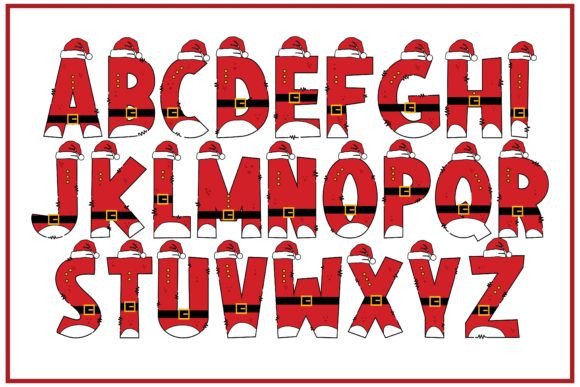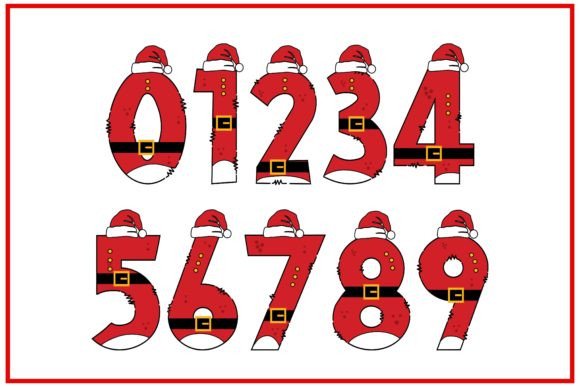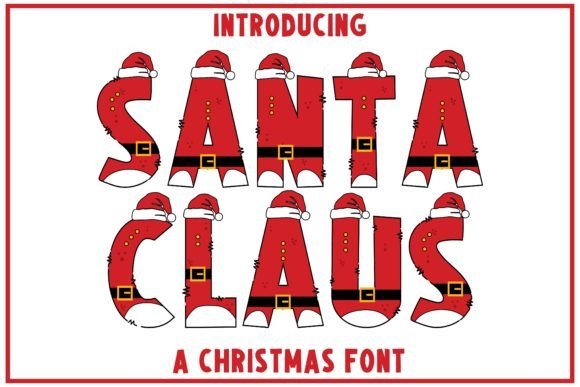
Introduction to Santa Claus Font
Santa Claus is a cute color font with lovely Santa hats.
It embodies playfulness and authenticity and is the perfect choice for any Christmas project or any children’s activity or any school project Note.